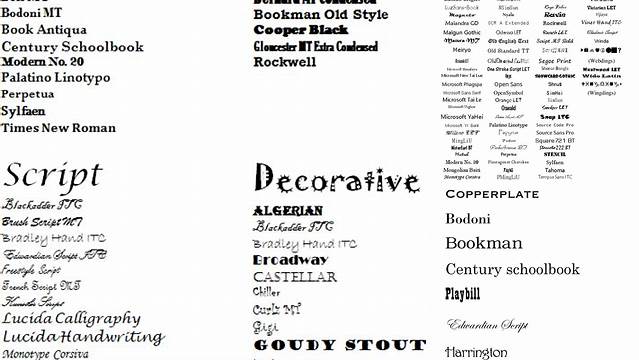
Classic Microsoft Word Fonts: A Nostalgic List
Hey guys! Remember the good old days of Microsoft Word, when Comic Sans was king (or maybe court jester?) and Times New Roman ruled the document world? We're diving deep into a nostalgic journey today, exploring the classic Microsoft Word fonts that shaped the look of countless essays, reports, and even that one heartfelt letter you wrote back in the day. This isn't just a stroll down memory lane; it’s a practical guide for anyone looking to recapture that retro feel in their documents or simply appreciate the history of typography. So, grab your digital magnifying glass, and let's get started!
1. The Timeless Times New Roman
Ah, Times New Roman, the font that launched a thousand ships… or at least a few million essays. This serif font, instantly recognizable and endlessly versatile, was a staple in academic papers and formal documents for decades. Times New Roman gained prominence for its readability and efficient use of space, making it a go-to choice for print media. But what exactly makes it so timeless? Well, its classic design, with its balanced serifs and clear letterforms, ensures that text is easy on the eyes, even in long passages. Think about it: you’ve probably read hundreds of pages in Times New Roman without even realizing it. That’s the beauty of a well-designed font – it fades into the background and lets the content shine. Nowadays, while other fonts have gained popularity, Times New Roman still holds a special place in the hearts (and style guides) of many. So, if you're aiming for a traditional, professional look, you can’t go wrong with this old faithful. It remains a solid choice for various applications, from formal letters to academic writing. Embracing this classic means embracing a legacy of clear communication and timeless elegance. Plus, it's a great reminder of a simpler time when choosing a font wasn’t an overwhelming task involving thousands of options!
2. The Ubiquitous Arial
Next up, we have Arial, the sans-serif superstar that's been a major player in the digital world since its introduction. Often seen as the modern counterpart to Times New Roman, Arial offers a clean, contemporary look that’s perfect for on-screen reading. Its simplicity and legibility have made it a default choice for websites, emails, and all sorts of digital documents. But how did Arial become so ubiquitous? A big part of its success lies in its versatility. Whether you’re crafting a sleek presentation or drafting a quick memo, Arial fits the bill. Its neutral design doesn’t distract from the content, allowing your message to take center stage. Plus, it scales well, meaning it looks just as good in a small footnote as it does in a large headline. Think about all the times you’ve seen Arial in action – from the text on your favorite websites to the labels on everyday products. It’s a font that’s so ingrained in our visual landscape that we often don’t even notice it. And that, in a way, is a testament to its success. Arial is a workhorse, a reliable font that gets the job done without any fuss. So, next time you’re looking for a font that’s both modern and functional, remember the power of Arial. It’s a classic for a reason. Its global use underscores its value in promoting universal communication clarity.
3. The Controversial Comic Sans MS
Ah, Comic Sans MS, the font that everyone loves to hate… or hates to love? This one is definitely a conversation starter! Originally designed for informal contexts, such as comic books and casual notes, Comic Sans MS has become infamous for its overuse (and misuse) in more formal settings. Its rounded, playful letterforms were intended to mimic the look of hand-lettered comics, giving it a friendly, approachable vibe. But somewhere along the line, Comic Sans MS escaped its niche and made its way into everything from business presentations to restaurant menus. And that's where the trouble began. Designers and typographers often cringe at the sight of Comic Sans MS in serious documents, arguing that its informal style clashes with professional aesthetics. But despite the criticism, Comic Sans MS has its defenders. Some argue that its cheerful appearance can make documents more accessible and less intimidating, especially for younger readers or individuals with dyslexia. It's a reminder that font choices are subjective and can evoke strong emotional responses. Whether you love it or loathe it, Comic Sans MS has certainly left its mark on the world of typography. It's a testament to how a font can become a cultural phenomenon, sparking debates and opinions wherever it goes. Love it or hate it, you can't deny its impact. So, what’s the lesson here? Use Comic Sans MS sparingly, and always consider your audience and the message you’re trying to convey.
4. The Elegant Calibri
Calibri, the sans-serif font that replaced Times New Roman as the default in Microsoft Office, brings a sense of modern elegance to the table. Its rounded terminals and subtle curves give it a softer, more approachable feel than some of its sans-serif predecessors. Calibri was designed to excel both on screen and in print, making it a versatile choice for a wide range of applications. One of the things that sets Calibri apart is its excellent readability. The carefully crafted letterforms ensure that text remains clear and legible, even at small sizes. This makes it a great option for body text, where readability is paramount. But Calibri is more than just a workhorse font. Its refined design also makes it suitable for headlines and titles, adding a touch of sophistication to any document. Think about the documents you’ve created in recent years – chances are, Calibri has played a starring role. It’s become a staple in the modern office, a font that’s both professional and stylish. And its popularity shows no signs of waning. So, if you’re looking for a font that strikes the perfect balance between form and function, Calibri is a fantastic choice. Its modern aesthetic fits well in today's digital and print landscapes, highlighting its long-term relevance.
5. The Stately Garamond
Garamond, a classic serif font with a rich history, exudes an air of timeless sophistication. Named after the 16th-century Parisian engraver Claude Garamond, this font has been a favorite of printers and designers for centuries. Its elegant letterforms and graceful curves give it a refined, almost aristocratic feel. Garamond is particularly well-suited for books and other long-form texts, where readability and aesthetic appeal are equally important. The subtle variations in stroke weight and the delicate serifs add character and warmth to the text, making it a pleasure to read. But Garamond isn’t just for print. Its timeless design translates beautifully to the digital realm, making it a great choice for websites and other online applications. When you choose Garamond, you’re not just selecting a font; you’re embracing a legacy of typographic excellence. It’s a font that has stood the test of time, and for good reason. Its enduring appeal lies in its blend of classic elegance and modern functionality. So, if you’re aiming for a look that’s both sophisticated and readable, Garamond is an excellent choice. Its historical significance combined with its aesthetic appeal makes it a top pick for anyone seeking a classic serif option.
6. Exploring Serif Fonts in Old Microsoft Word
Serif fonts, with their characteristic strokes or “feet” at the ends of letterforms, have a long and storied history in typography. In the world of old Microsoft Word fonts, serif options were particularly prominent, often favored for their readability and traditional aesthetic. Think of classic novels, academic journals, and formal documents – chances are, you’ve encountered a serif font in each of these contexts. But what makes serif fonts so special? The serifs themselves are thought to aid the eye in tracking across lines of text, making them ideal for extended reading. Plus, serif fonts often convey a sense of authority, elegance, and tradition. In old Microsoft Word, fonts like Times New Roman, Garamond, and Bookman Old Style were mainstays. These fonts offered a range of stylistic options, from the formal rigidity of Times New Roman to the softer curves of Garamond. Each font brought its own personality to the table, allowing users to tailor their documents to specific purposes and audiences. Even today, serif fonts remain a popular choice for many applications. They’re a testament to the enduring appeal of classic design and the importance of readability. So, whether you’re drafting a formal letter or writing the next great American novel, consider the timeless elegance of a serif font. You might just find that it’s the perfect fit for your project. Serif fonts embody a sense of history, offering a connection to traditional typographic practices.
7. Diving into Sans-Serif Fonts in Classic Word
Now, let’s switch gears and explore the world of sans-serif fonts, those sleek and modern typefaces that lack the serifs found in their counterparts. In classic Word, sans-serif fonts offered a refreshing contrast to the traditional serif options, providing a cleaner, more contemporary look. Fonts like Arial, Helvetica, and later, Calibri, became popular choices for a variety of applications. What’s the appeal of sans-serif fonts? Their simplicity and clarity make them particularly well-suited for on-screen reading. The absence of serifs can also give them a more informal, approachable feel. This makes them a great choice for websites, presentations, and other digital media. In old Microsoft Word, sans-serif fonts provided users with a way to inject a touch of modernity into their documents. Arial, with its clean lines and versatility, became a staple for many. Other sans-serif options offered a range of stylistic variations, from the geometric precision of Helvetica to the softer curves of Calibri. Today, sans-serif fonts continue to dominate the digital landscape. Their readability and contemporary aesthetic make them a go-to choice for designers and users alike. So, if you’re looking for a font that’s both functional and stylish, a sans-serif option might be just what you need. They are a cornerstone of modern design, blending functionality with a clean aesthetic.
8. Monospace Fonts: A Nod to Typewriter Days
Monospace fonts, those typefaces where each character occupies the same horizontal space, hold a special place in the history of typography. They evoke the era of typewriters, where every letter, number, and symbol was allotted the same width. In the list of old Microsoft Word fonts, monospace options like Courier and Courier New offered a distinct, utilitarian aesthetic. What’s the story behind monospace fonts? Their origins lie in the mechanical constraints of typewriters, where consistent character widths were necessary for proper alignment. But even with the advent of digital typography, monospace fonts have maintained their appeal. They’re often used in coding and programming, where precise alignment is crucial. They also have a certain retro charm, reminding us of a time when typewriters were the primary tool for writing. In classic Word, monospace fonts provided a unique stylistic option. Courier, with its distinctive letterforms and uniform spacing, became a familiar sight in screenplays, technical documents, and other contexts where a no-frills aesthetic was desired. Today, monospace fonts continue to be used in a variety of applications. They’re a reminder of the practical origins of typography and the enduring appeal of functional design. So, if you’re looking for a font with a bit of retro flair or need a typeface for a technical document, consider the timeless appeal of a monospace font. They represent a fusion of function and nostalgia, appealing to users in technical and creative fields.
9. Script Fonts: Adding a Touch of Elegance
Script fonts, with their flowing, handwritten letterforms, bring a touch of elegance and personality to any document. In the world of old Microsoft Word fonts, script options offered a way to add a personal touch to invitations, announcements, and other special occasions. Fonts like Brush Script and Edwardian Script were popular choices for those seeking a more formal, calligraphic look. What sets script fonts apart? Their design is inspired by the art of handwriting, with letters often connecting in a fluid, cursive style. This gives them a more personal, human feel than other font categories. However, script fonts can also be more challenging to read in large blocks of text, so they’re best used sparingly, for headings, titles, or short passages. In classic Word, script fonts provided users with a way to express their creativity. Brush Script, with its bold strokes and dynamic curves, was a favorite for informal invitations and announcements. Edwardian Script, with its delicate flourishes and ornate letterforms, conveyed a sense of old-world elegance. Today, script fonts continue to be used in a variety of design projects. They’re a great way to add a touch of personality and sophistication to your work. So, if you’re looking for a font that’s both beautiful and expressive, a script option might be just what you need. Their graceful style adds a personal touch, making them perfect for creative and formal applications.
21. Identifying Fonts: Tools and Techniques
Identifying fonts can be a valuable skill for designers, typographers, and anyone who works with text. Whether you're trying to match a font used in a logo or identify a classic old Microsoft Word font, there are several tools and techniques that can help. One of the easiest ways to identify a font is to use online font identification tools. These tools allow you to upload an image of text, and they'll analyze the letterforms to suggest possible matches. Some popular font identification tools include WhatTheFont, Identifont, and Font Matcherator. Another helpful technique is to look for distinctive letterforms. Certain fonts have unique characteristics, such as unusual serifs or a particular shape for the letter